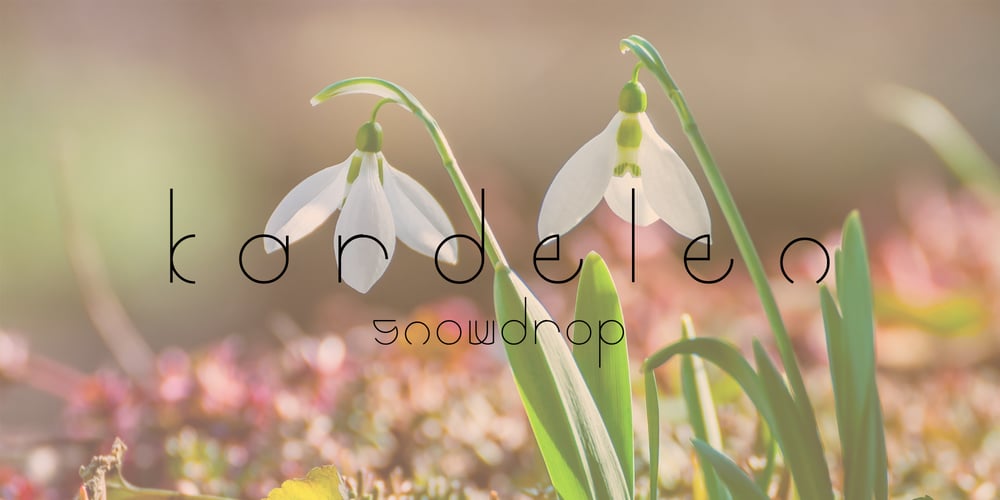
Kardelen Font Family was designed by Hakan Polat and published by HakanPolatovic. Kardelen contains 1 styles and family package options. KARDELENmeans,snowdrop flower in TurkishBEAUTYKardelen font is created for expression of pure beautyGEOMETRYEvery glyph on kardelen has a ratio to one another,which makes it rational